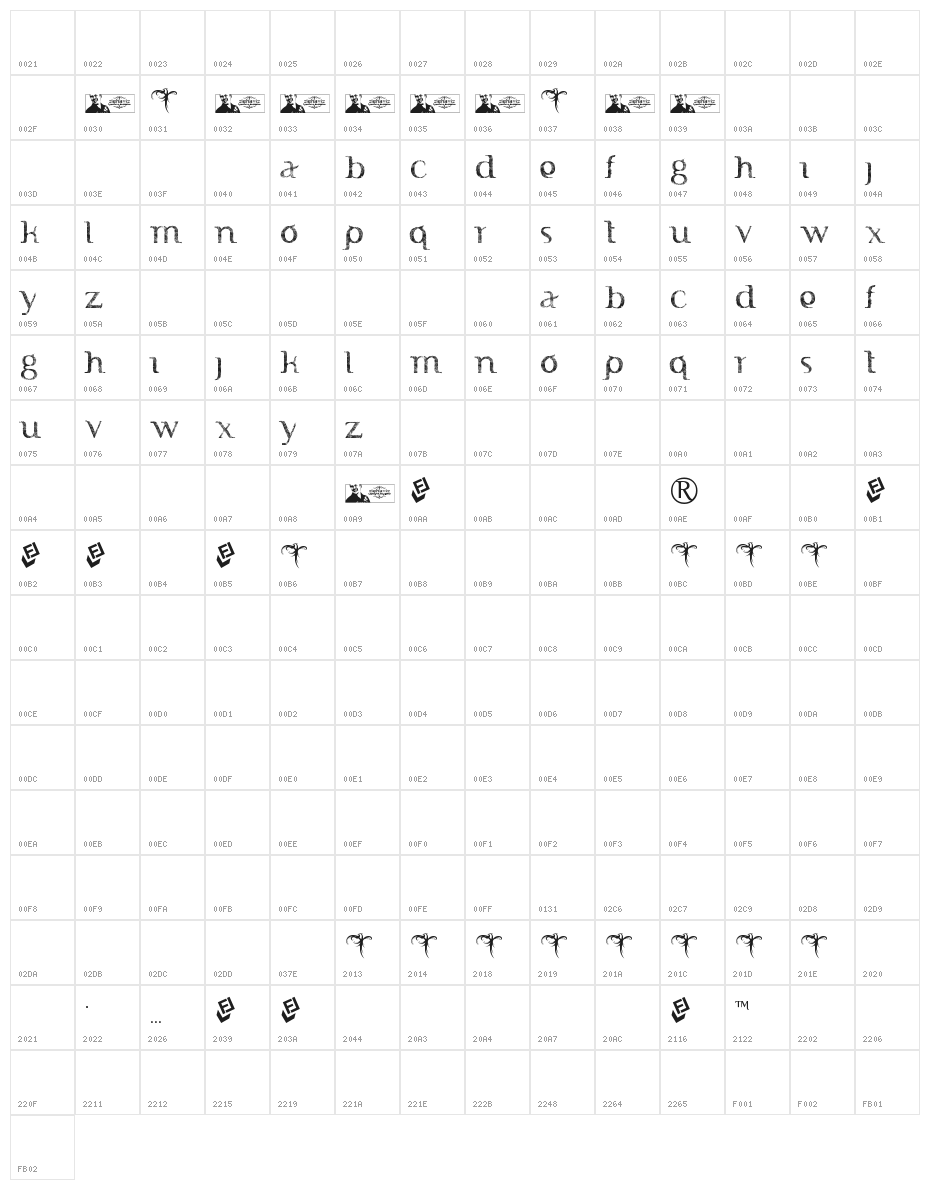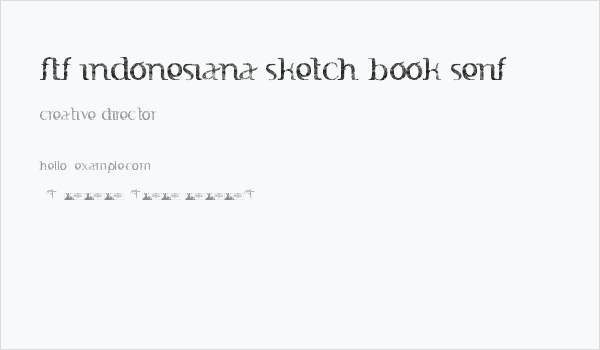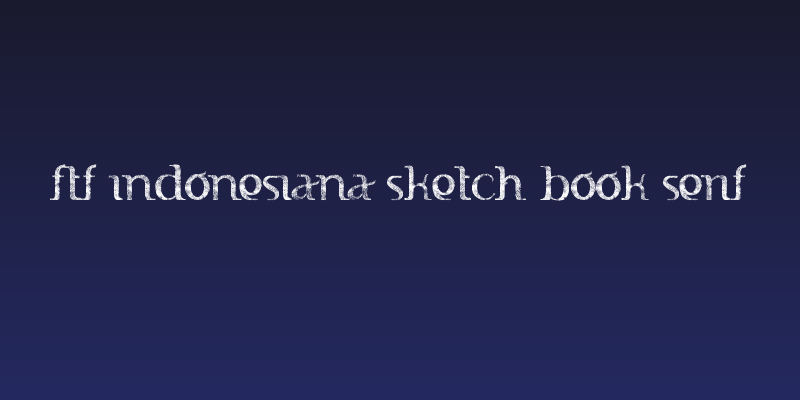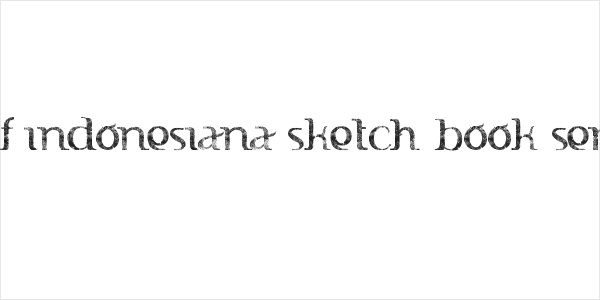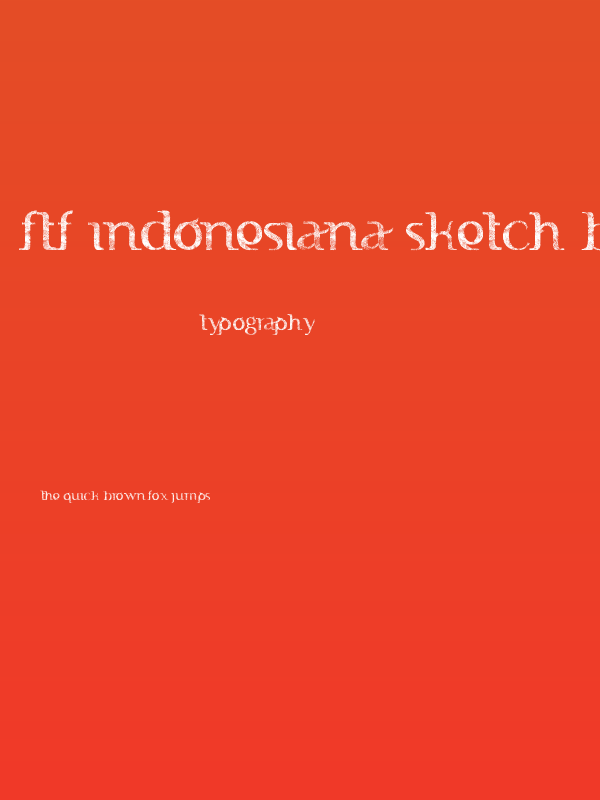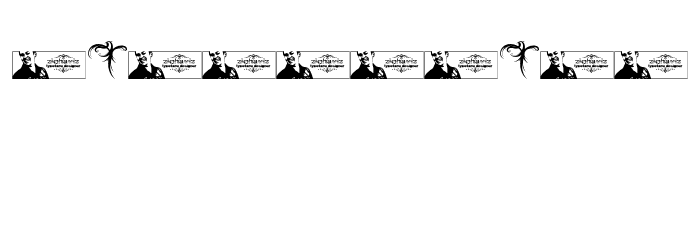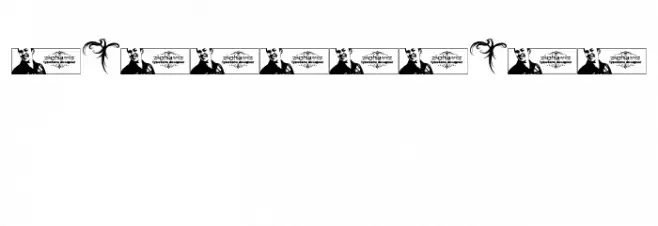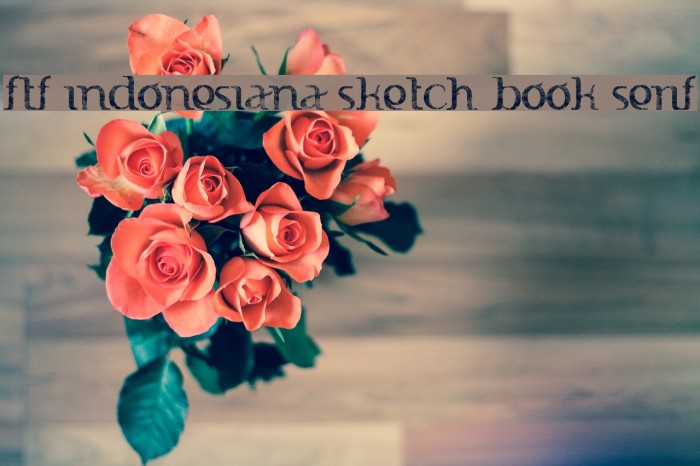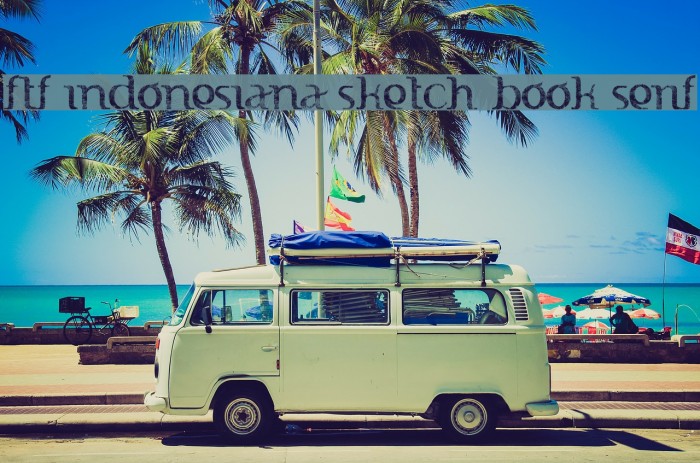
FTF Indonesiana Sketch Book Serif Font
FTF Indonesiana Sketch Book Serif Description
This font features a textured, sketch-like appearance that gives it a hand-drawn, artistic feel. The characters have a serif style with distinct, sharp edges and a slightly uneven texture that mimics the look of a pencil sketch. The overall design is both decorative and classic, making it suitable for projects that require a touch of elegance and creativity. The uppercase and lowercase letters maintain a consistent style, with the serifs adding a traditional touch to the otherwise modern and artistic design. The font's unique texture and style make it stand out, providing a visually interesting element to any design.
| Use Case | Headlines, Logos, Artistic projects |
| Proposed Projects | Ideal for artistic projects, book covers, posters, and branding that require a creative and elegant touch. |